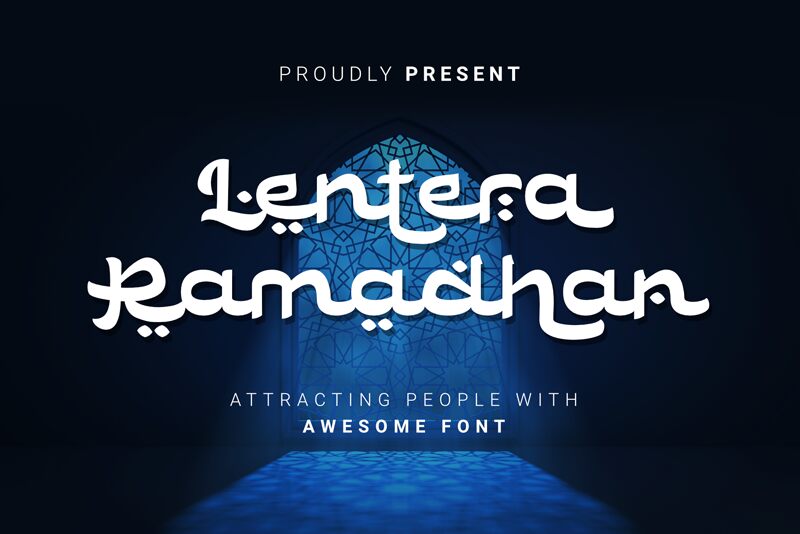
Lentera Ramadhan
Lentera Ramadhan is a stunning foreign font designed by DumadiStyle. Its unique arabic style is perfect for projects that require an exotic and elegant touch, such as wedding invitations or luxury branding. With its expanded width, this semi-bold font stands out from the crowd, making it ideal for headlines and titles. Use Lentera Ramadhan to add a touch of sophistication to your designs and make them truly unforgettable. Whether you're creating posters, book covers, or social media graphics, this font will help you achieve the perfect balance between tradition and modernity.